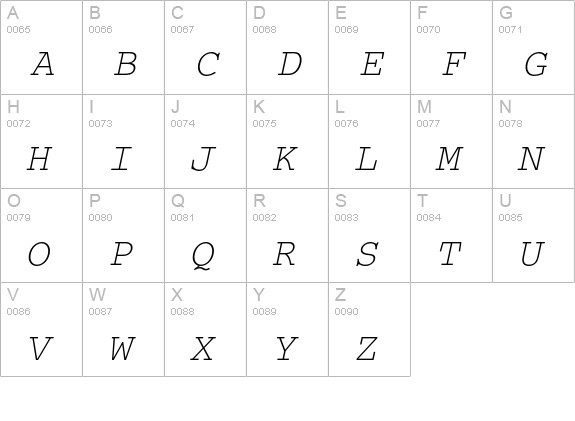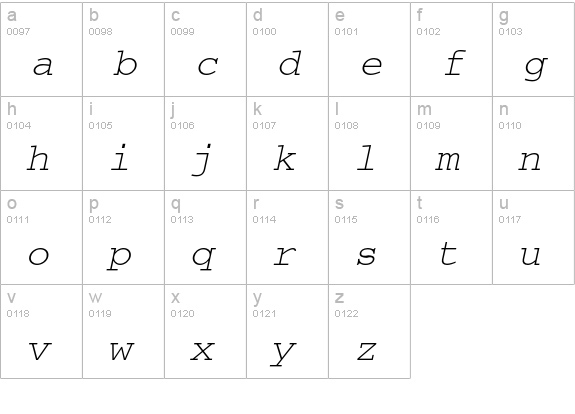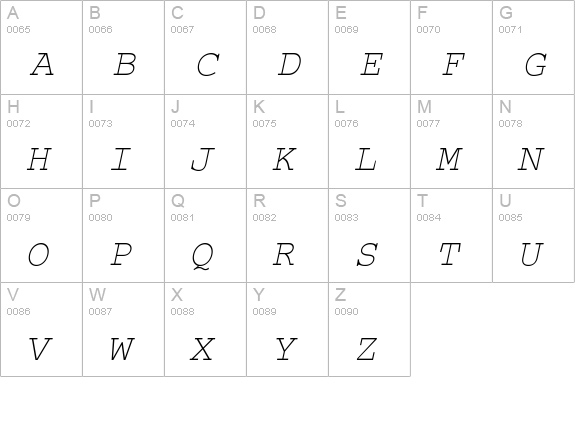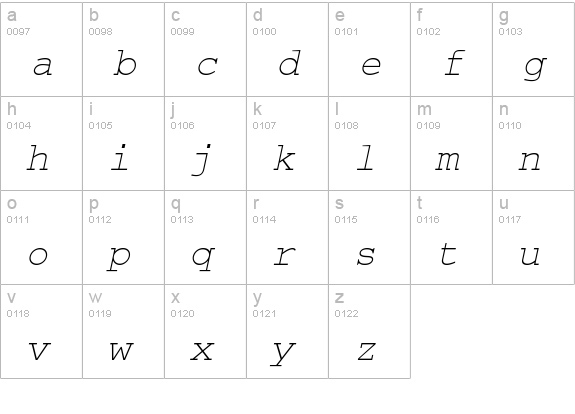
PT Courier Oblique Cyrillic is a distinctive, italic variant in the PT typeface family \xE2\x80\x94 well suited to design and typography projects.
PT Courier Oblique Cyrillic font is a visually striking and versatile typeface that combines the classic look of the Courier font with a stylish oblique design specifically tailored for Cyrillic characters. The slanted letters of this font add a dynamic and modern touch to any project, making it ideal for a wide range of design applications. What sets PT Courier Oblique Cyrillic font apart is not only its unique style, but also the fact that it is available for free download at FontsMarket.com. This means that designers and creatives alike can easily access and use this high-quality font without any cost, making it a valuable addition to their font library. Whether used for print materials, digital designs, or web projects, PT Courier Oblique Cyrillic font is sure to make a bold statement and elevate the overall aesthetic of any composition.